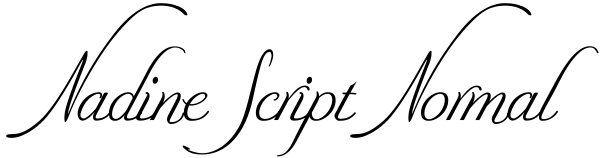
Nadine
Nadine is a very elegant Script. I based the design on a set of initials that Bernard Naudin designed around 1920 for Deberny & Peignot. I gave the font a name “Nadine” because that sounds similar to Naudin. Naudin is in my opinion one of the most...
Nadine Script Start End
Nadine Script Extra
Nadine Script Normal